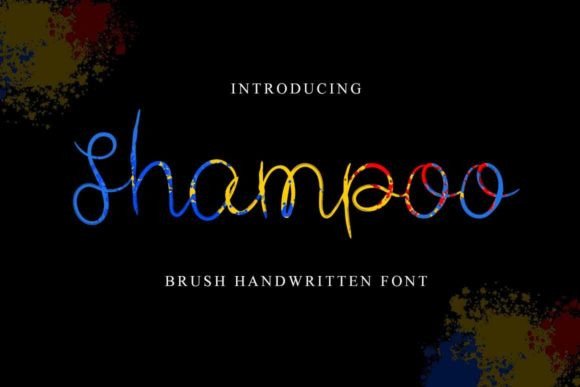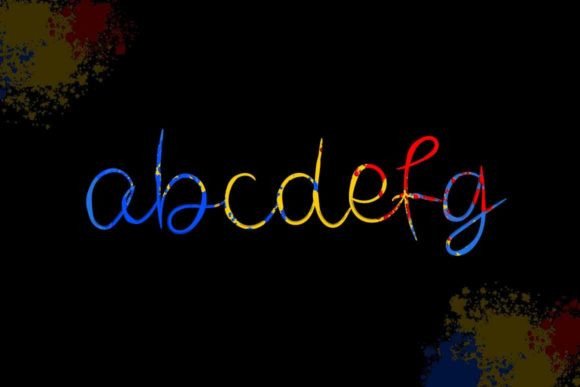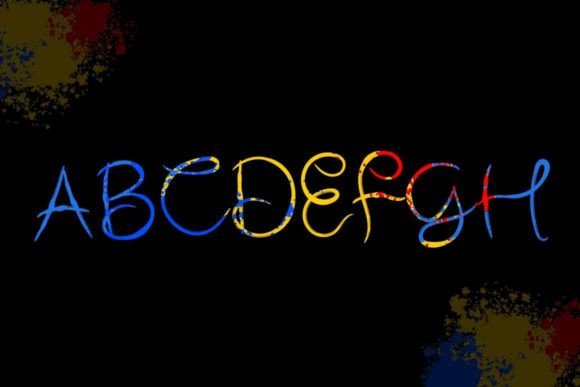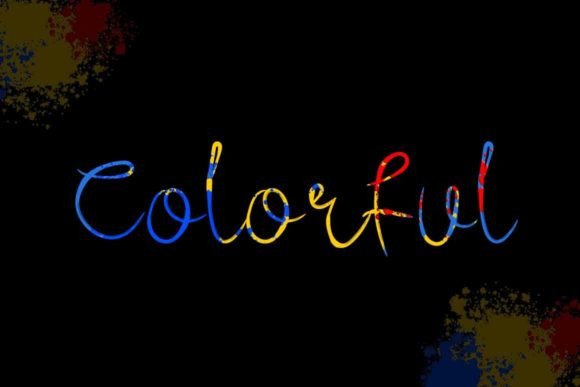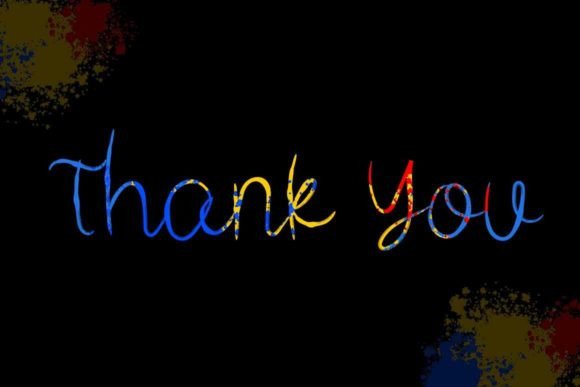
Shampoo Font
About Shampoo Font
“Shampoo” is a beautiful and sweet font that embodies freshness, cleanliness, and elegance. This font has the ability to enhance a wide range of projects, both formal and informal, and it infuses an incredibly joyful touch into your designs.
The charm of “Shampoo” lies in its fresh and elegant script. Its clean and well-designed letterforms create a visually captivating and refined experience, making it an ideal choice for projects that aim to convey a sense of beauty and sophistication.
One of the standout qualities of “Shampoo” is its versatility. Whether you’re using it for formal business documents, crafting informal invitations, designing elegant posters, enhancing web graphics, or working on various other creative projects, “Shampoo” integrates seamlessly into your creative vision.
This font’s dedication to adding beauty and joy to your designs sets it apart. Whether you’re working on personal or professional endeavors, “Shampoo” brings a sense of freshness and elegance to your work that resonates with a diverse audience.
In summary, “Shampoo” is more than just a font; it’s a versatile and beautiful creative tool that can elevate your projects. Whether you’re a professional seeking an elegant and joyful font for your business or an enthusiast passionate about design, “Shampoo” is here to make your designs shine with its fresh and sweet script. Embrace the beauty and joy of “Shampoo,” and watch your creativity flourish with a touch of elegance and happiness.